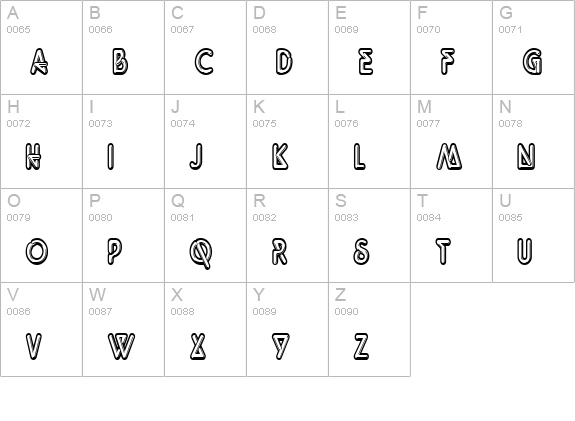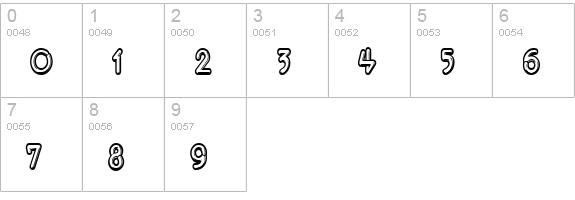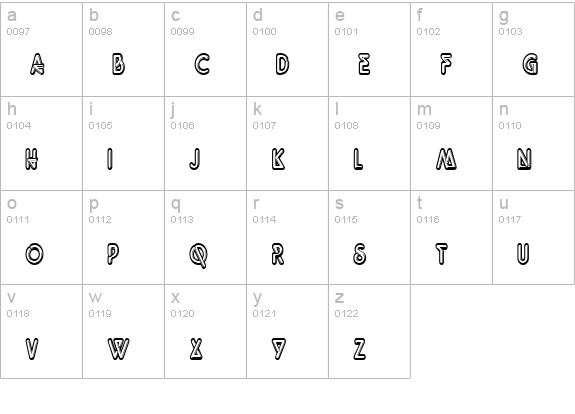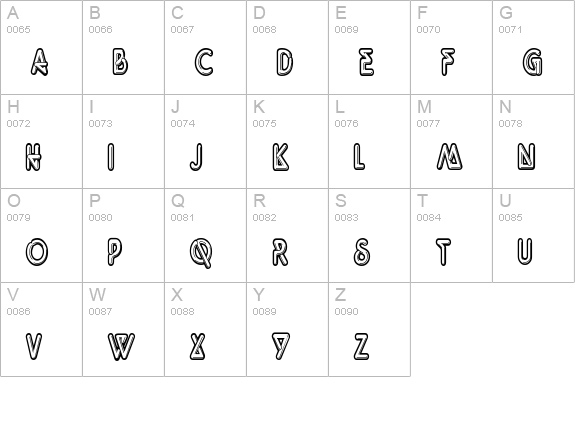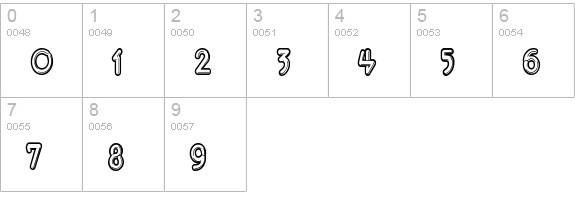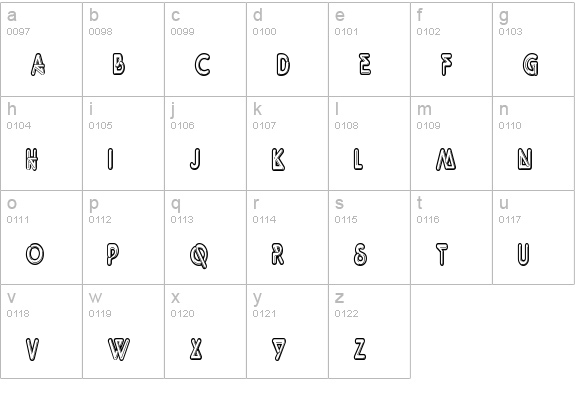
NeonzCondensed Normal is the standard, neutral variant in the NeonzCondensed typeface family \xE2\x80\x94 well suited to general body text, paragraphs, and standard typographic work.
NeonzCondensed Normal font is a sleek and modern typeface that exudes a futuristic and dynamic vibe. With its condensed style and sharp edges, this font is perfect for creating eye-catching headlines, signage, and branding materials. The clean lines and bold appearance make NeonzCondensed Normal font stand out in any design project. The best part? NeonzCondensed Normal font is available for free download at FontsMarket.com. Whether you're a graphic designer, marketer, or hobbyist looking to add a touch of contemporary flair to your work, this font is sure to elevate your designs and captivate your audience. Don't hesitate to grab this stylish and versatile font for your next project and make a lasting impression.